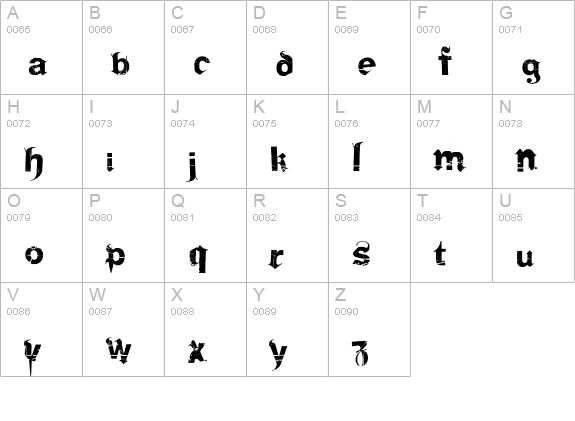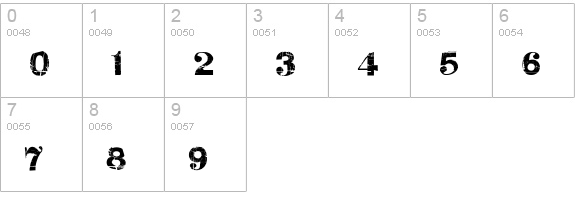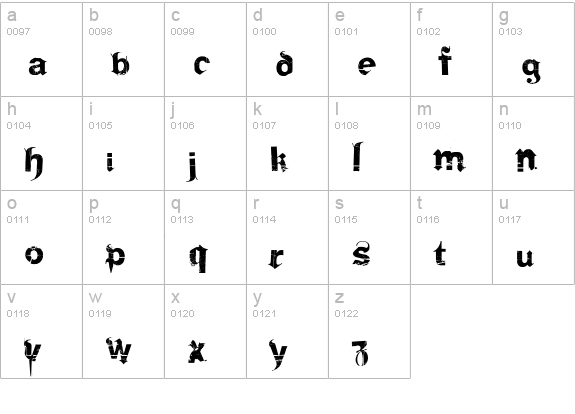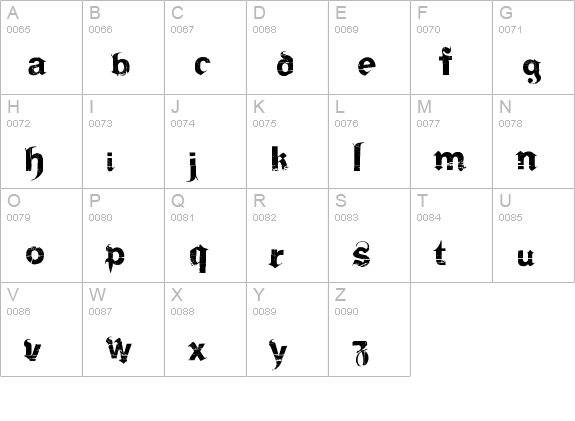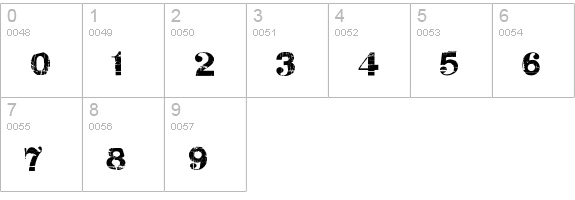
Frakturika Spamless Font Details
Frakturika Spamless font is a stunning display typeface that combines traditional Fraktur elements with a modern twist, resulting in a unique and elegant design. Its intricate details and sharp edges give it a sophisticated and timeless appearance, making it perfect for a variety of projects such as branding, invitations, posters, and more. What sets Frakturika Spamless font apart is its ability to convey a sense of both tradition and innovation simultaneously. The clean lines and carefully crafted letterforms make it highly legible and versatile, while its distinctive style adds a touch of sophistication to any design. Best of all, Frakturika Spamless font is available for free download at FontsMarket.com, allowing designers to access this high-quality typeface without any cost. Whether you're working on a personal project or a commercial endeavor, Frakturika Spamless font is sure to elevate your design and make a lasting impression.